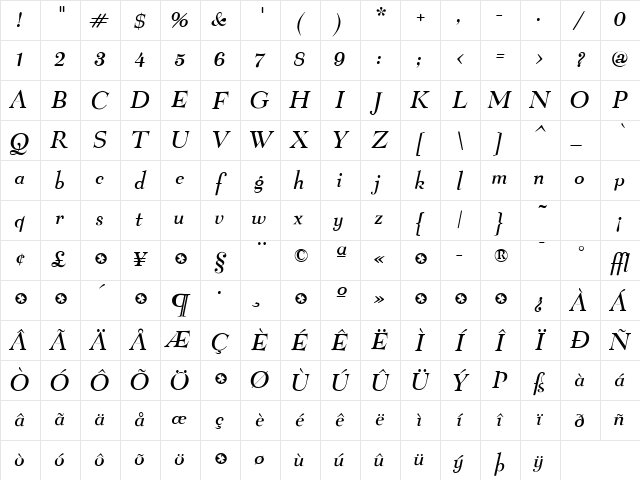
Belucian DemiBold Italic
Design Context for Belucian
Belucian is a composed and adaptable typeface that performs quietly and consistently across a wide range of design contexts. The slanted form adds forward momentum and visual energy. Its bold stroke weight gives it real presence on the page.
Pro Tip: Use Belucian for emphasis, pull quotes, and subheadings where its slanted energy can add rhythm to the layout.